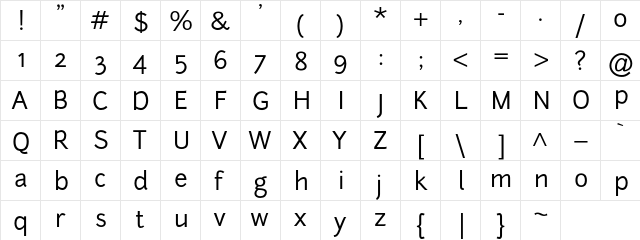
junction regular Regular Font Preview
junction regular Regular
junction regular Regular Font Details
Design Context for junction regular Typeface
junction regular is a composed and adaptable typeface that performs quietly and consistently across a wide range of design contexts.